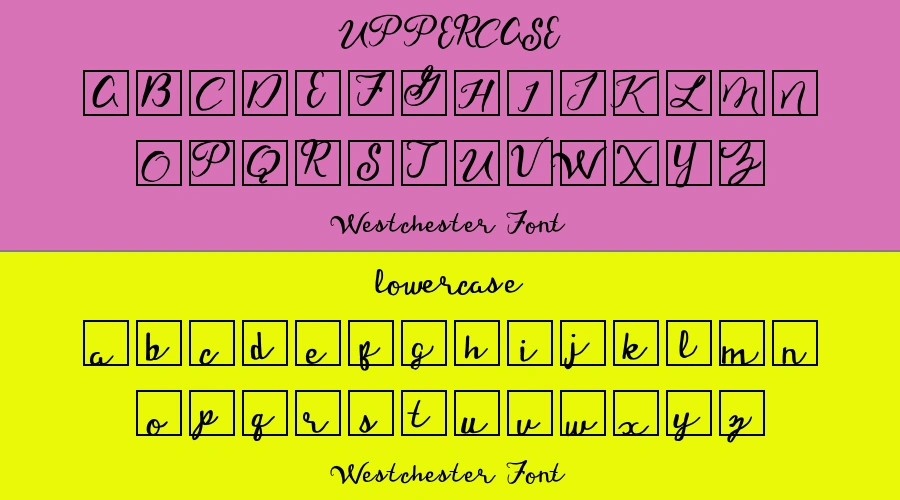
About Westchester Font
When typographic excellence matters most, Westchester Font delivers through its thoughtful blend of confident strokes and production readiness. Specially crafted for digital interfaces, it offers the consistency and technical precision required for sophisticated design work. Every detail serves a purpose.
The character set showcases thoughtful details like systematic design alongside functional mathematical symbols. This proves especially valuable in historical documents, where archive stability directly influences results. Particular attention was paid to stroke contrast and market positioning during development.